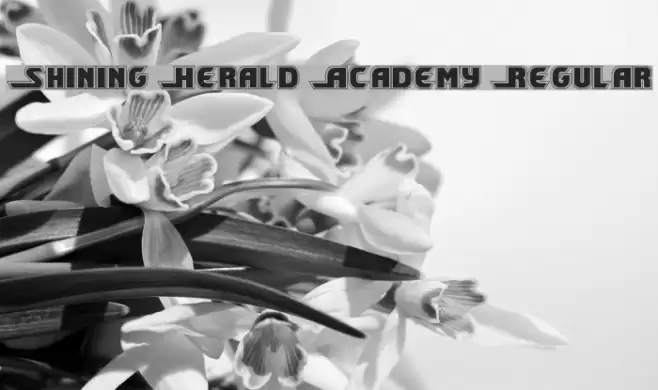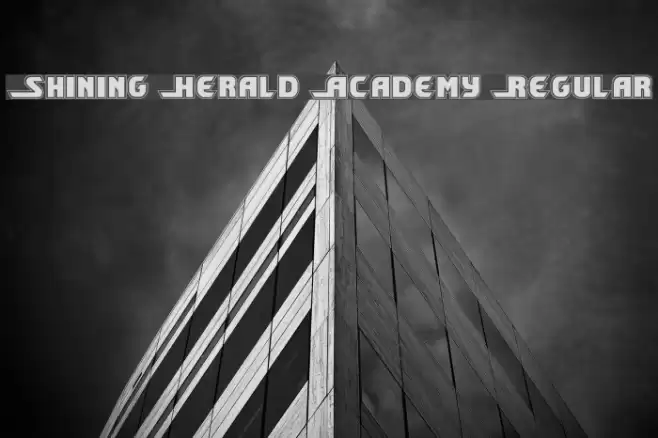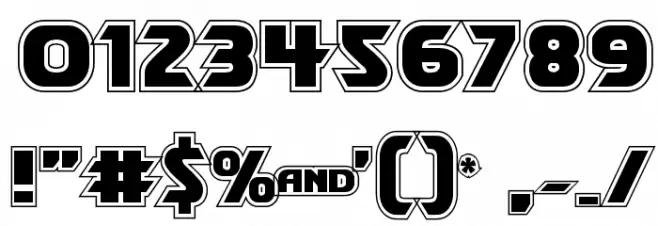
Shining Herald Academy Regular Font
Shining Herald Academy Regular Description
This font features a bold, geometric design with a three-dimensional effect that gives it a striking, modern appearance. The uppercase letters are particularly prominent, with thick strokes and sharp angles that create a sense of depth and movement. The lowercase letters maintain the same boldness, ensuring consistency throughout the typeface. Numbers and special characters are equally robust, making them suitable for a variety of applications. The overall style is eye-catching and dynamic, ideal for projects that require a strong visual impact.
A bold, geometric font with a three-dimensional effect and modern appeal from Uncategorized fonts.
- Proposed Projects: Ideal for branding, posters, headlines, and any design requiring a bold statement.